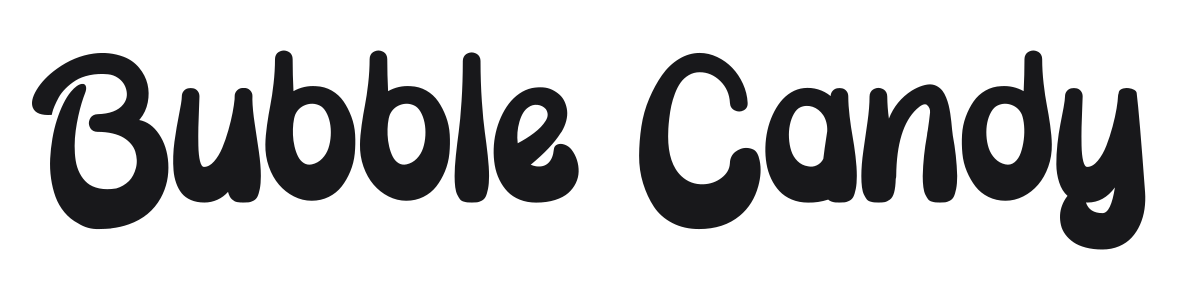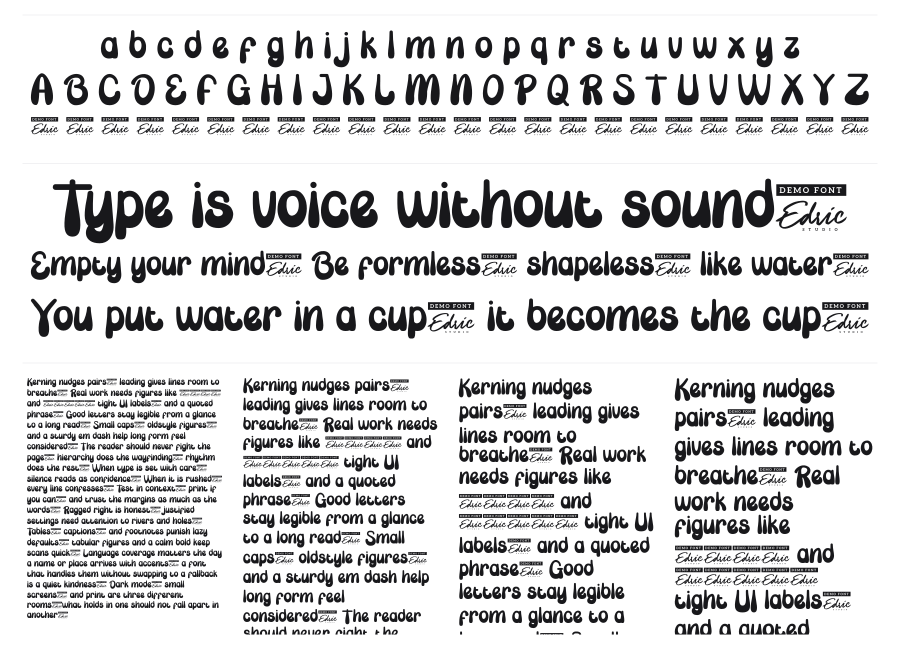
Bubble Candy
Bubble Candy is a heavy rounded display font with thick, inflated strokes and a deeply playful cartoon personality. The characters feel soft and bouncy, with nearly closed counters and oversized ball terminals that amplify the bubbly effect. It reads instantly as fun and is built for candy packaging, children's branding, and anything that should feel joyful.